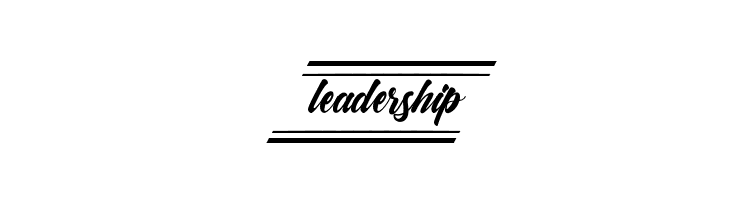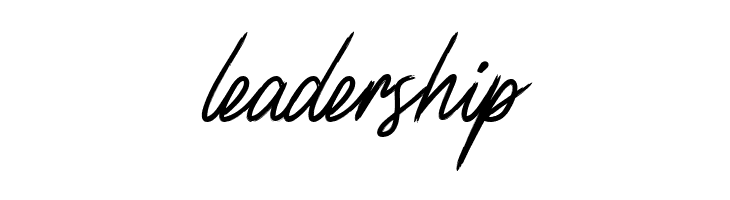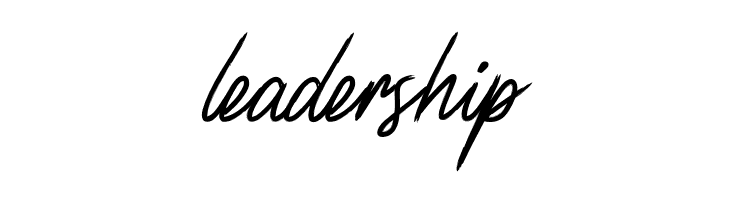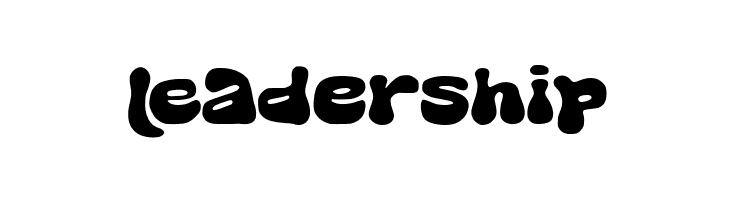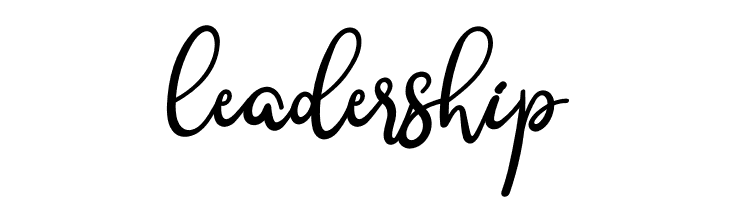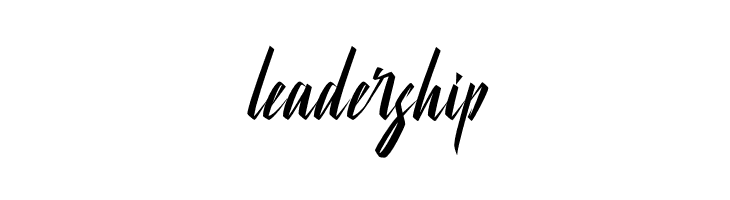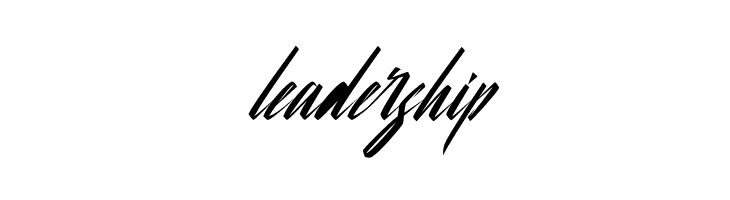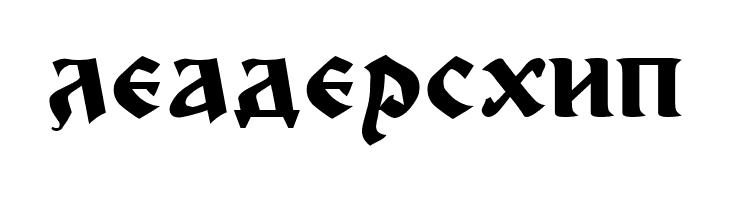
A bold, playful font with rounded edges and a bubbly appearance.
A bold, decorative font with intricate detailing and high contrast.
An elegant, flowing script font with interconnected letters and a sophisticated style.
A bold, energetic script font with smooth, flowing curves and a handwritten feel.
A whimsical, handwritten cursive font with elegant, flowing letters.
A stylish and elegant script font with fluid, graceful strokes.
Energetic, bold script with brush-like strokes and a dynamic handwritten feel.
Energetic, slanted script with bold, sweeping strokes.
A playful and quirky font with a hand-drawn, whimsical style.
A bold, slanted font with sharp, angular edges and high contrast.
A bold, slanted font with sharp, angular edges and a modern, dynamic style.
A bold, geometric font with a futuristic and modern style.
A sleek, modern font with elongated, angular characters and a dynamic appearance.
An elegant, flowing script font with delicate, calligraphic lines.
An elegant script font with flowing, interconnected letters and a handcrafted feel.
A fluid and elegant script font with dynamic cursive letterforms.
A fluid, elegant script font with a natural handwritten style.
An elegant, flowing script font with ornate, connected letterforms.
A sophisticated and elegant handwritten script with fluid, graceful letterforms.
A cursive, handwritten-style font with fluid, interconnected letters.
A fluid and elegant script font with connected cursive strokes.
A graceful, cursive script font with elegant loops and swirls.
A charming and elegant handwritten font with fluid, cursive strokes.
A modern, elegant script font with flowing, interconnected characters.
A delicate and flowing script font with elegant, interconnected letters.
A graceful, italic script font with flowing curves and elegant style.
A playful and elegant script font with flowing, cursive letterforms.
A bold, dynamic script font with fluid, connected letterforms.
A flowing, elegant script font with decorative flourishes.
A bold, geometric font with strong, angular lines.
A bold, handwritten-style font with expressive and dynamic characters.
A bold, playful font with rounded, bubbly characters and a whimsical style.
A playful, hand-drawn font with tall, narrow characters and rounded edges.